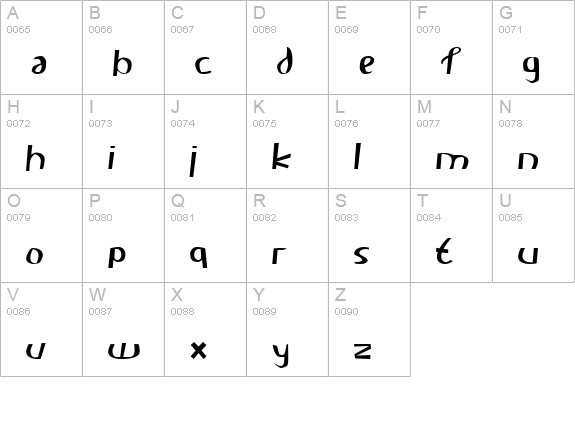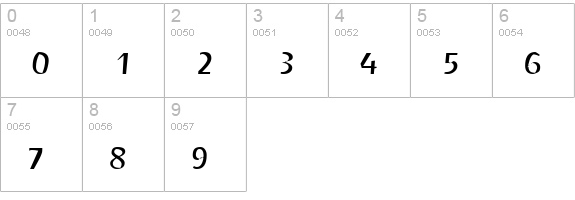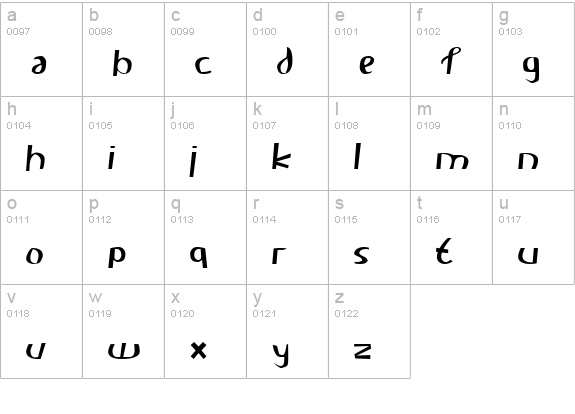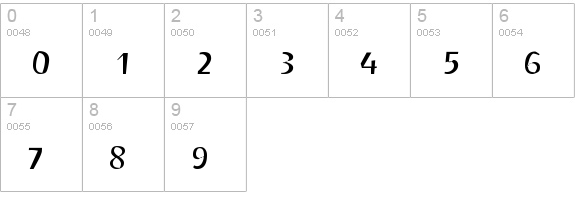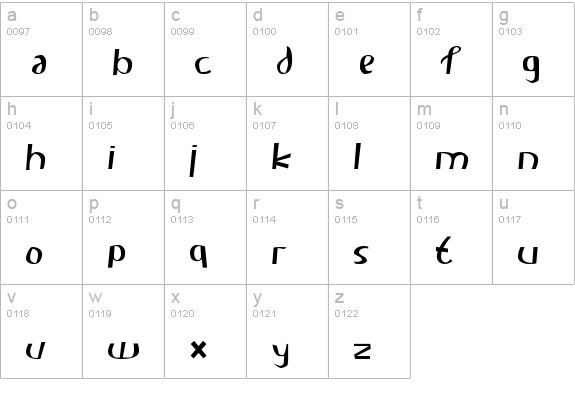
Carlie font is a modern and elegant typeface that exudes sophistication and charm. With its sleek lines and graceful curves, Carlie effortlessly captures attention and adds a touch of style to any design project. Whether used for branding, signage, or editorial purposes, this versatile font brings a sense of class and refinement to your work. What sets Carlie font apart is that it is not only visually appealing but also easily accessible. This high-quality font is available for free download at FontsMarket.com, making it a valuable resource for designers and creatives looking to elevate their projects without breaking the bank. Don't miss out on the opportunity to enhance your designs with the timeless beauty of Carlie font - download it today and see the difference it can make!